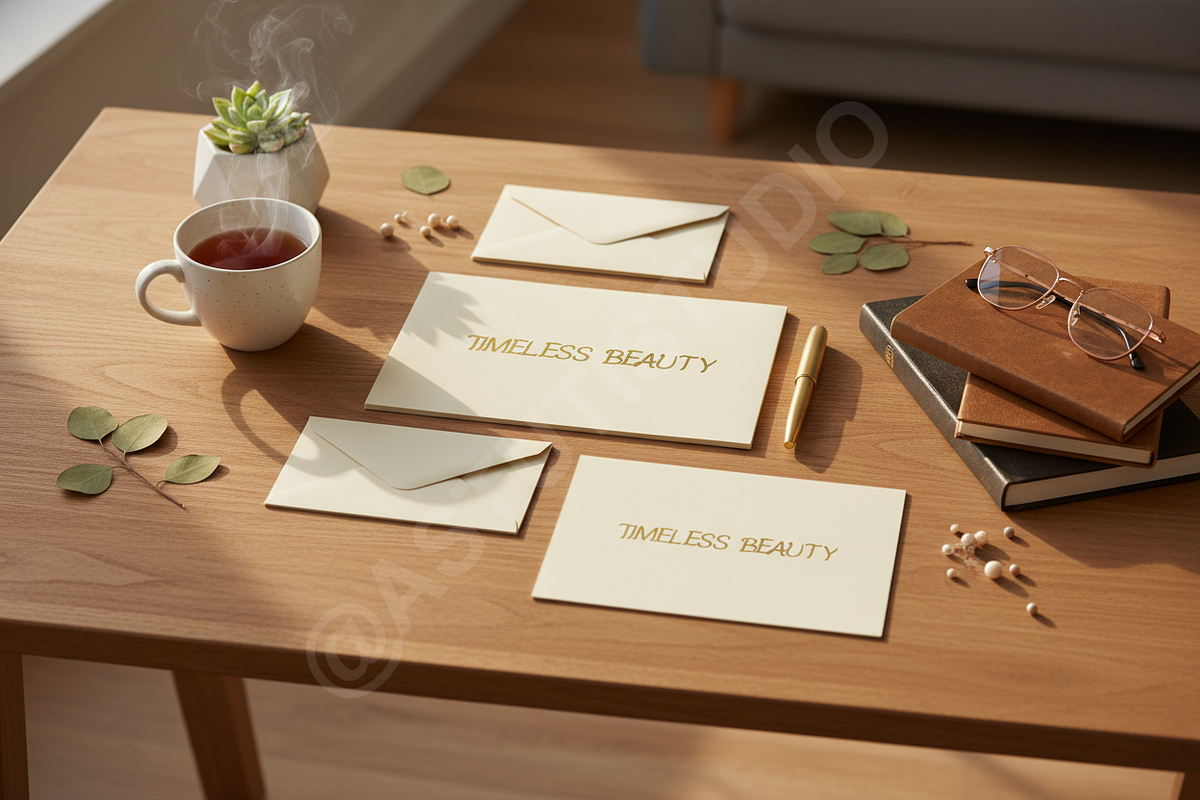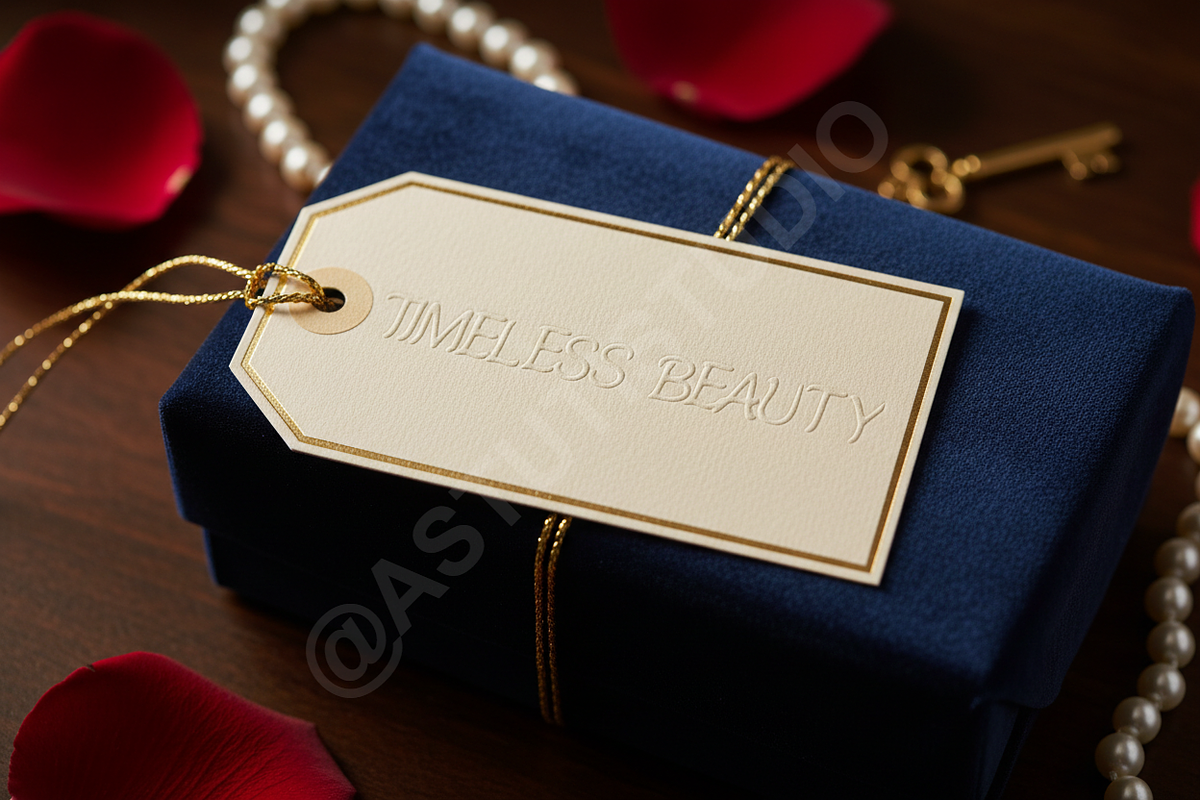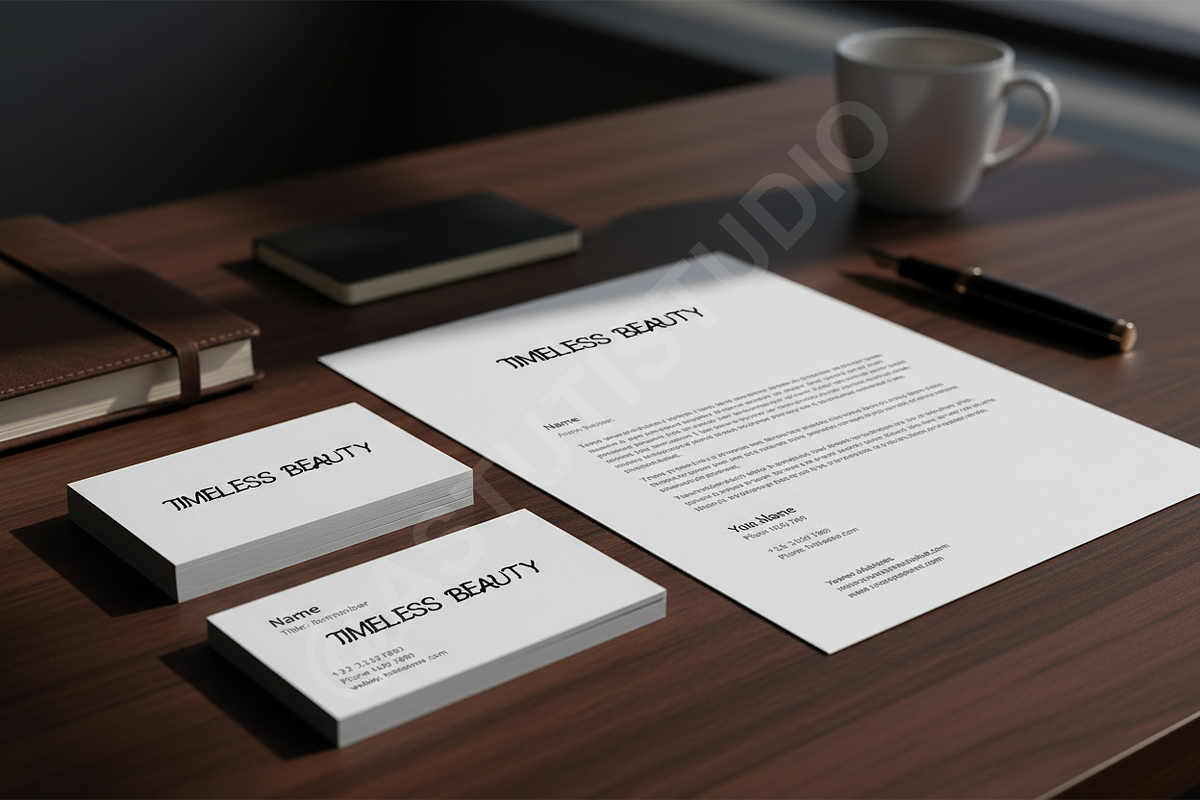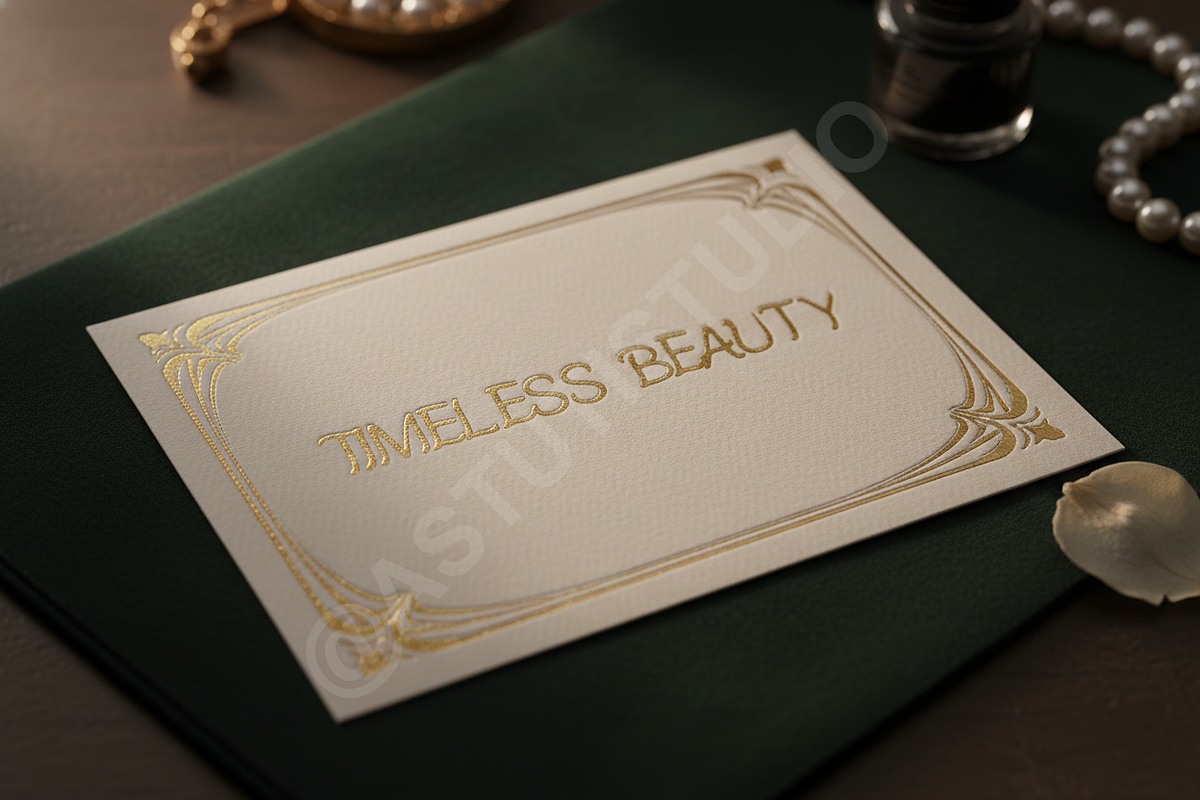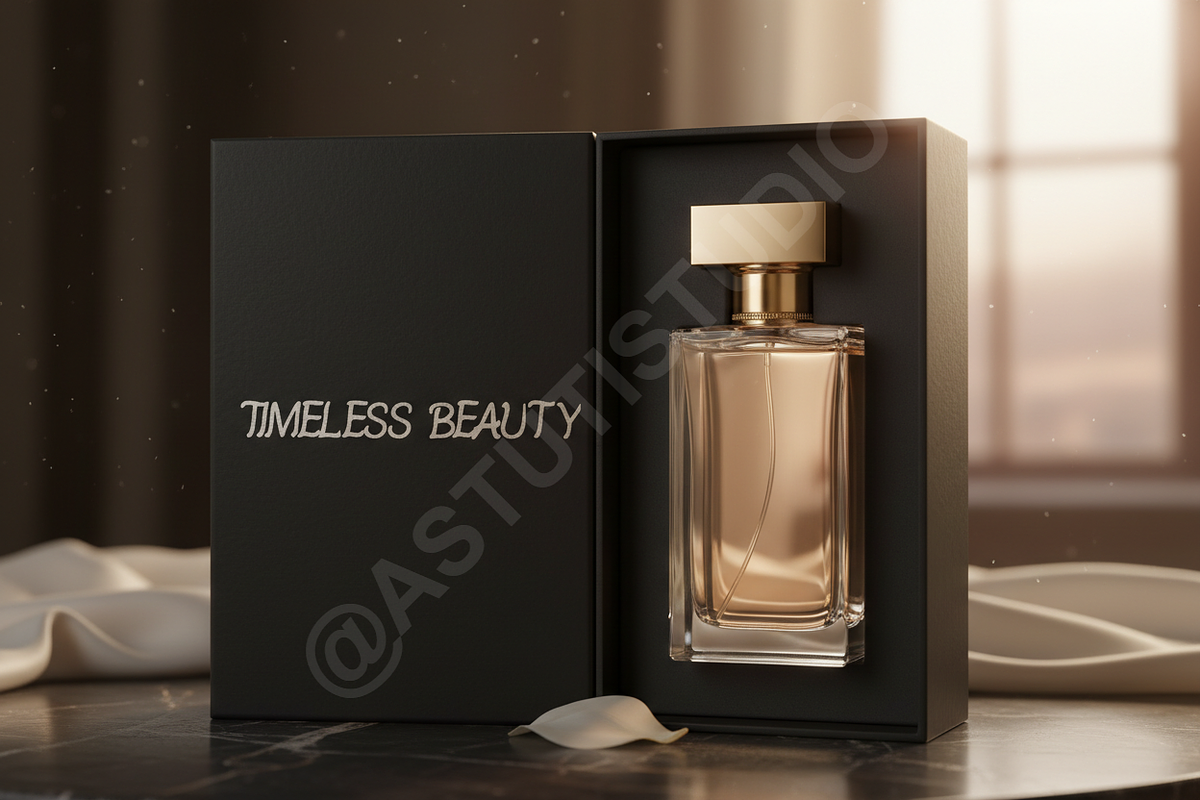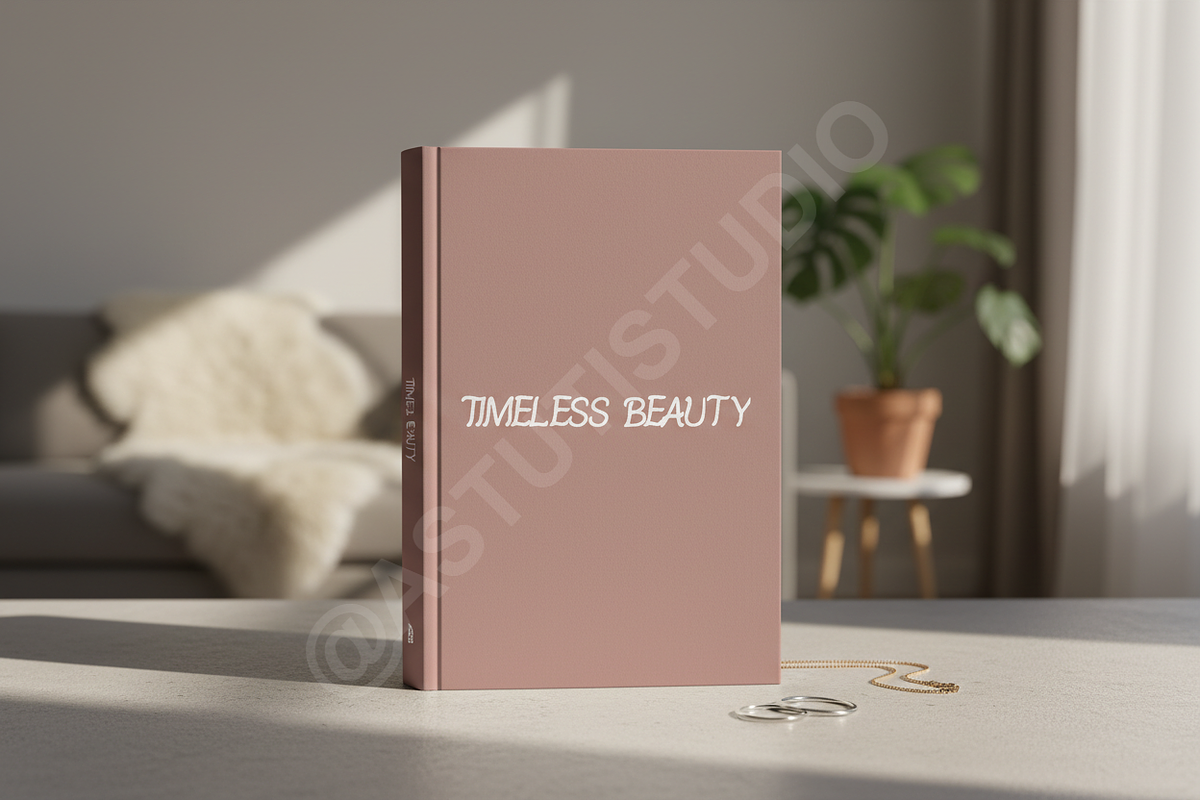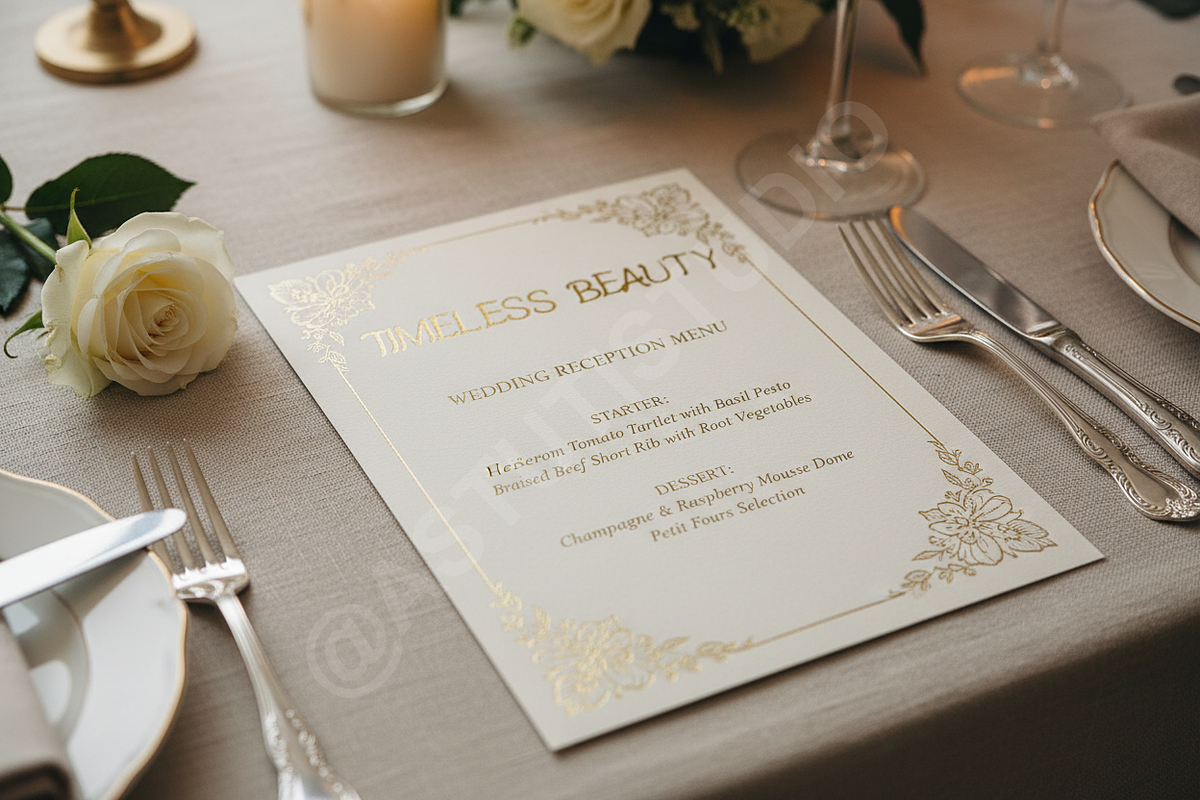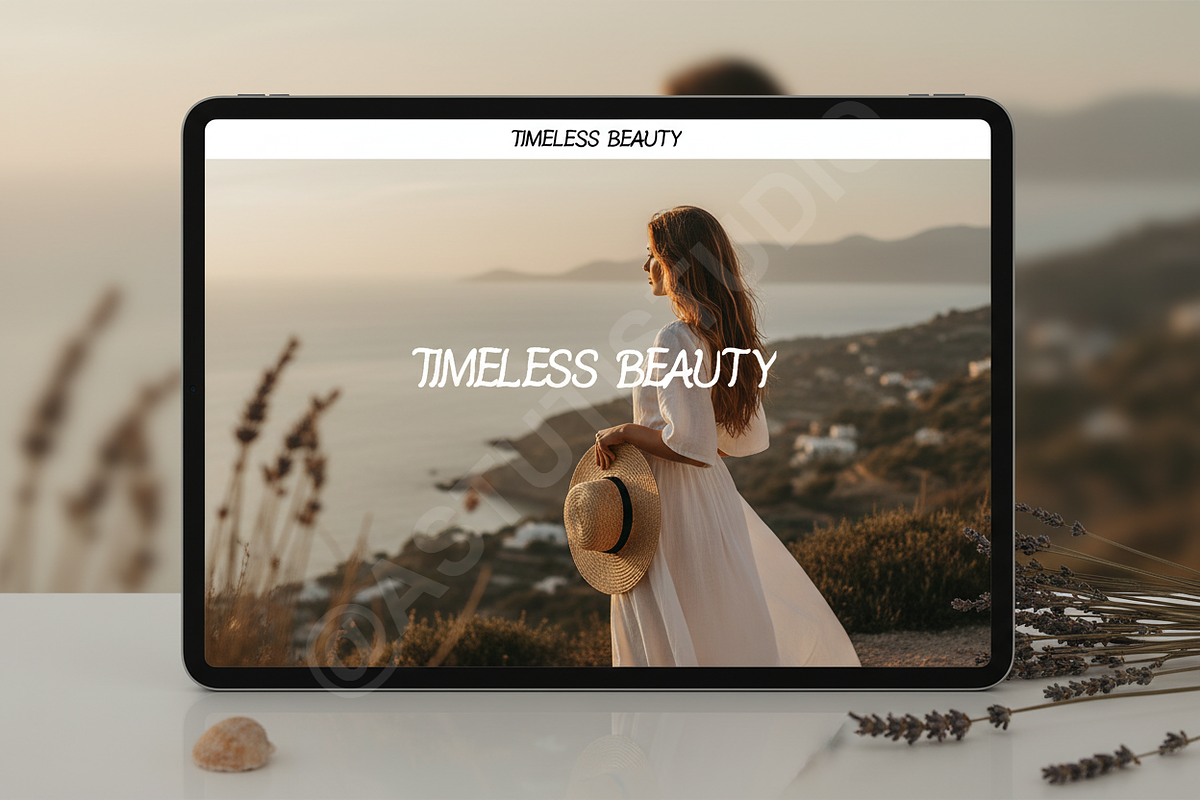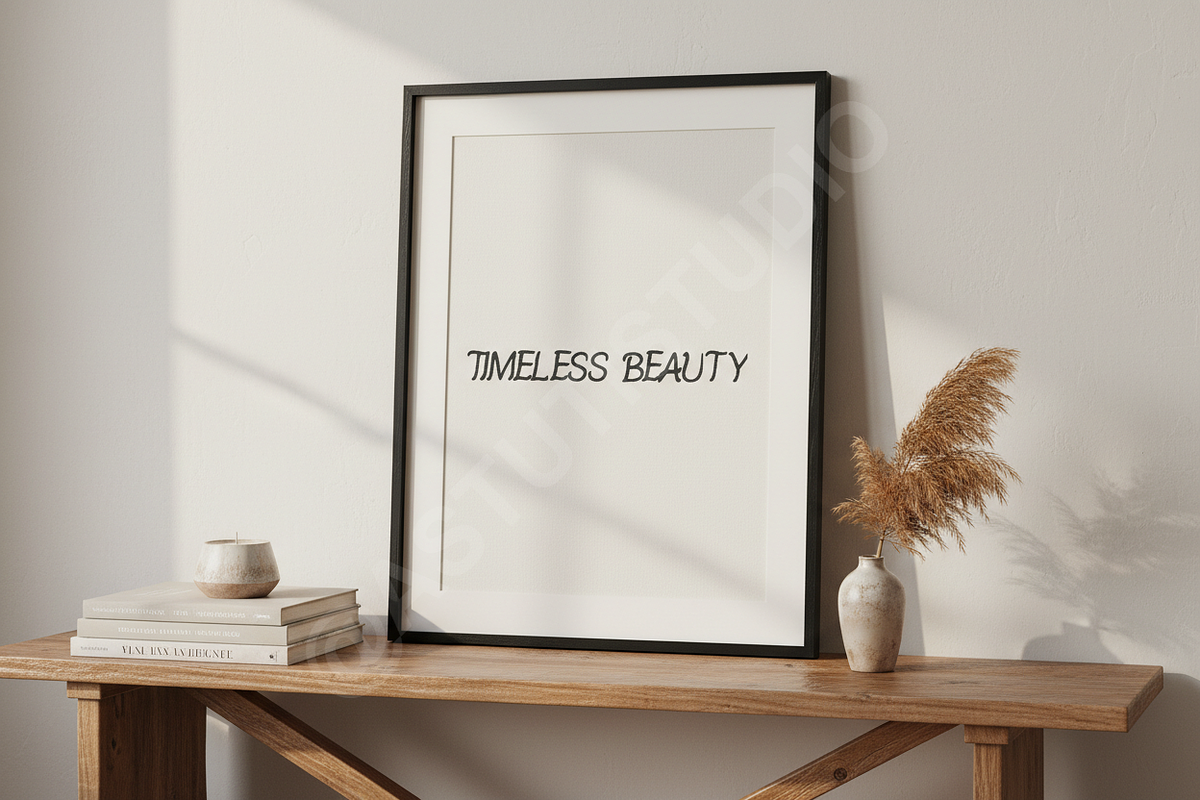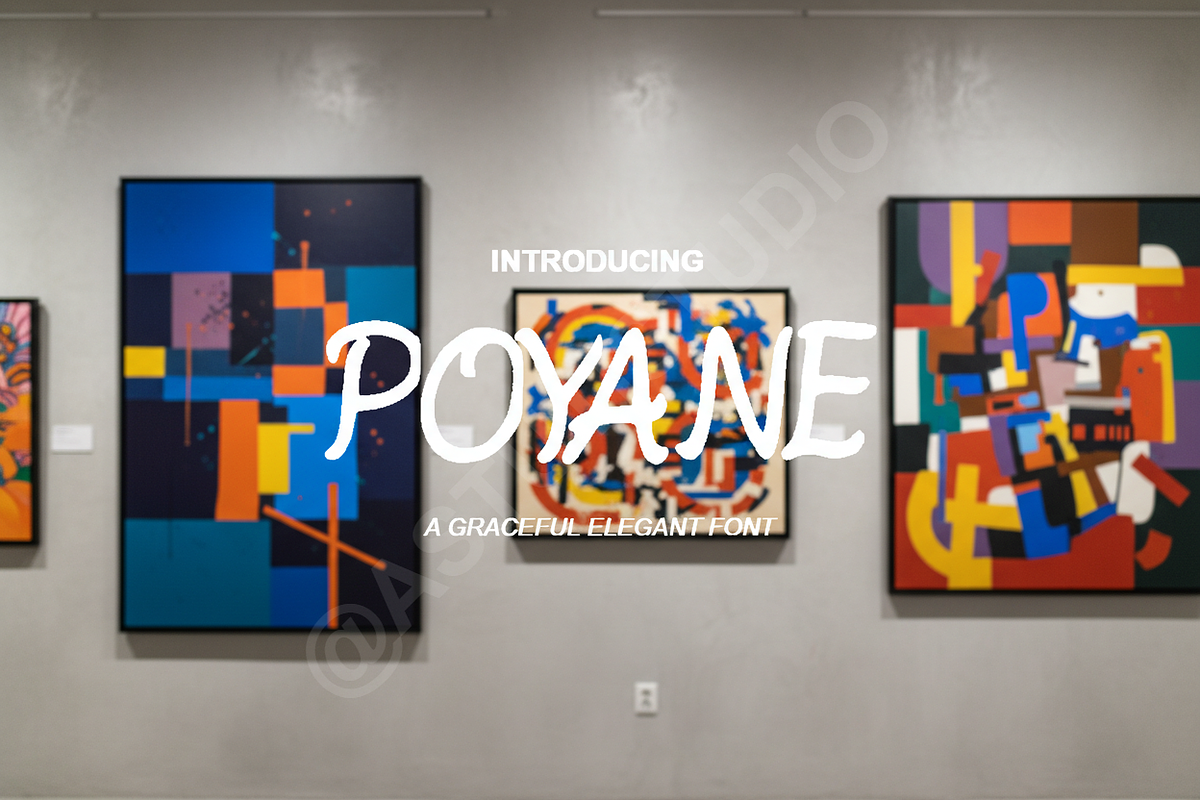
Poyane - Elegant Modern Serif Typef
Poyane is a refined serif font meticulously crafted for high-end visual identities. Designed with sophisticated proportions and delicate, high-contrast strokes, it embodies a sense of timeless luxury and contemporary grace. This typeface is an ideal choice for boutique fashion branding, luxury editorial layouts, and premium social media presence where elegance is paramount.
- High-contrast letterforms for a premium aesthetic
- Clean, sharp terminals and elegant curves
- Comprehensive multilingual support for global reach
- Optimized for both print and digital high-resolution displays